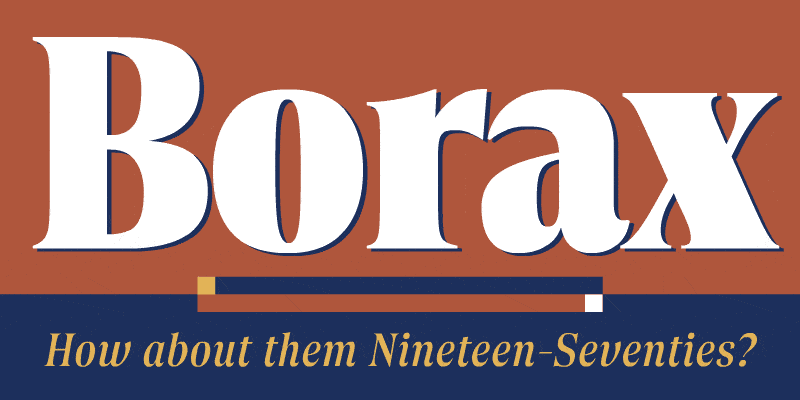
Borax Variable Font Free Download is a sharp, high-impact display typeface that blends brutalist energy with modern typographic precision. With its heavy geometry, distinctive angles, and commanding presence, Borax is perfect for posters, album covers, editorial design, branding, and visual identities that demand bold expression.
What makes Borax Variable Font Free Download especially powerful is its variable functionality—allowing you to fluidly adjust weight and stylistic intensity with precision. From lean and tight to thick and striking, Borax gives designers control over tone and texture, making it ideal for both dramatic headlines and experimental layouts.
Its unconventional forms are designed to break the mold while still maintaining a surprising amount of readability. Borax thrives in design contexts that embrace edge, contrast, and confident aesthetics—whether digital or in print.
With Borax, your typography becomes a visual statement—loud, architectural, and undeniably modern. Perfect for pushing boundaries and turning heads.